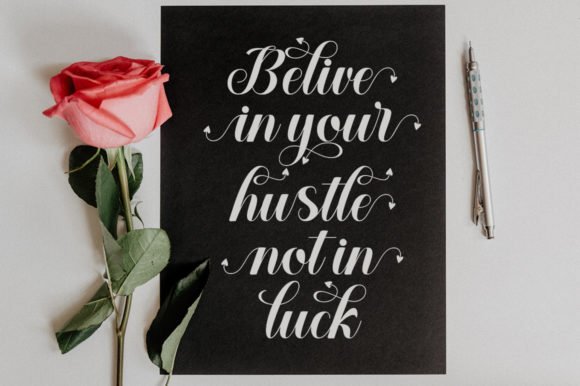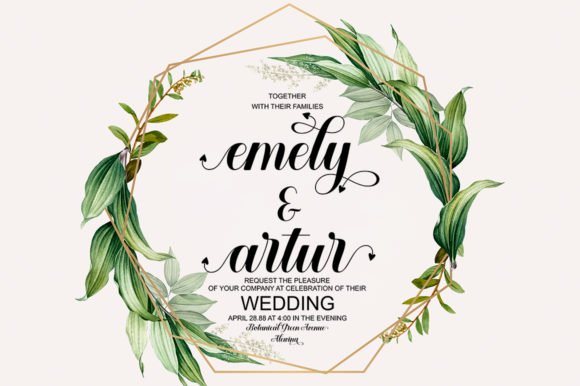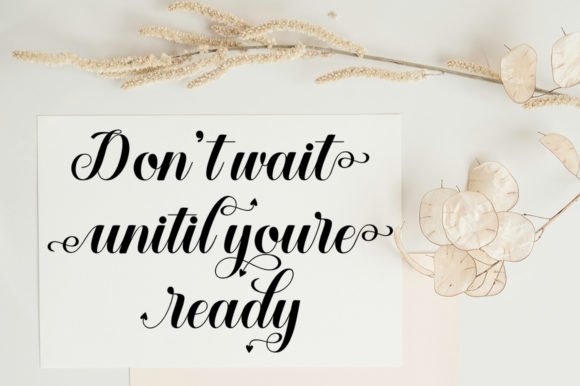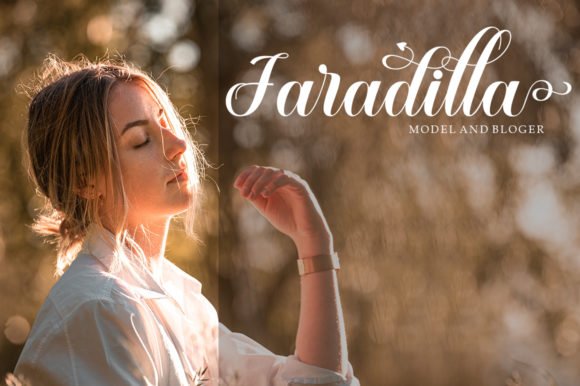
Baby Magnolia Font
Baby Magnolia is a delicate, distinct, and flowing handwritten font. Add it to your most creative ideas, and notice how it makes them come alive!This font is PUA encoded, which means you can access all of the glyphs and swashes with ease!